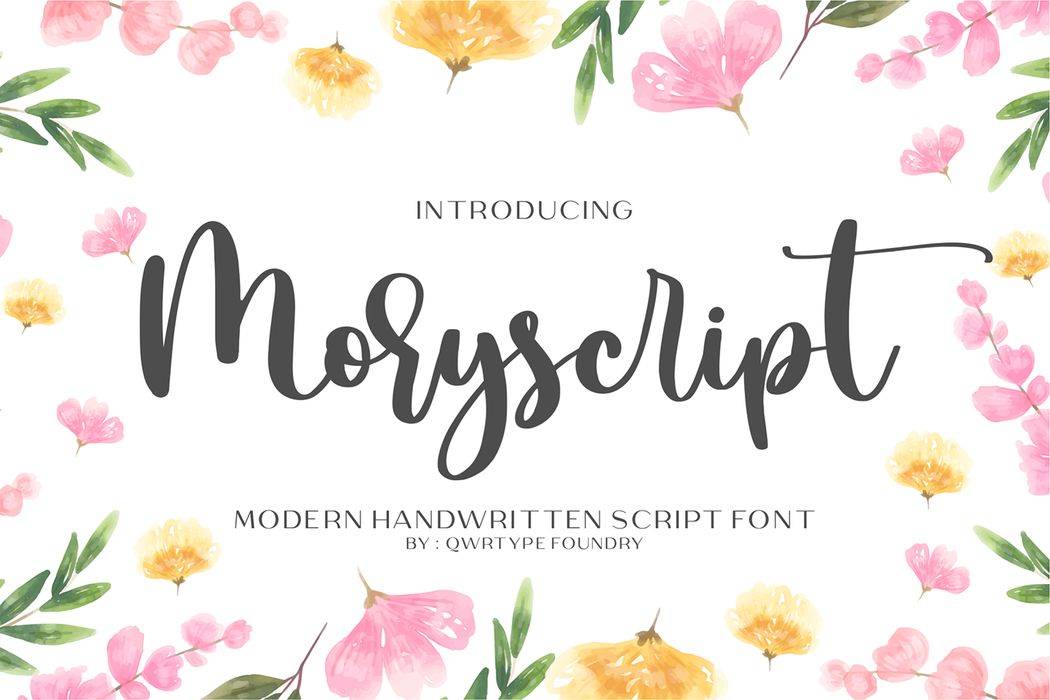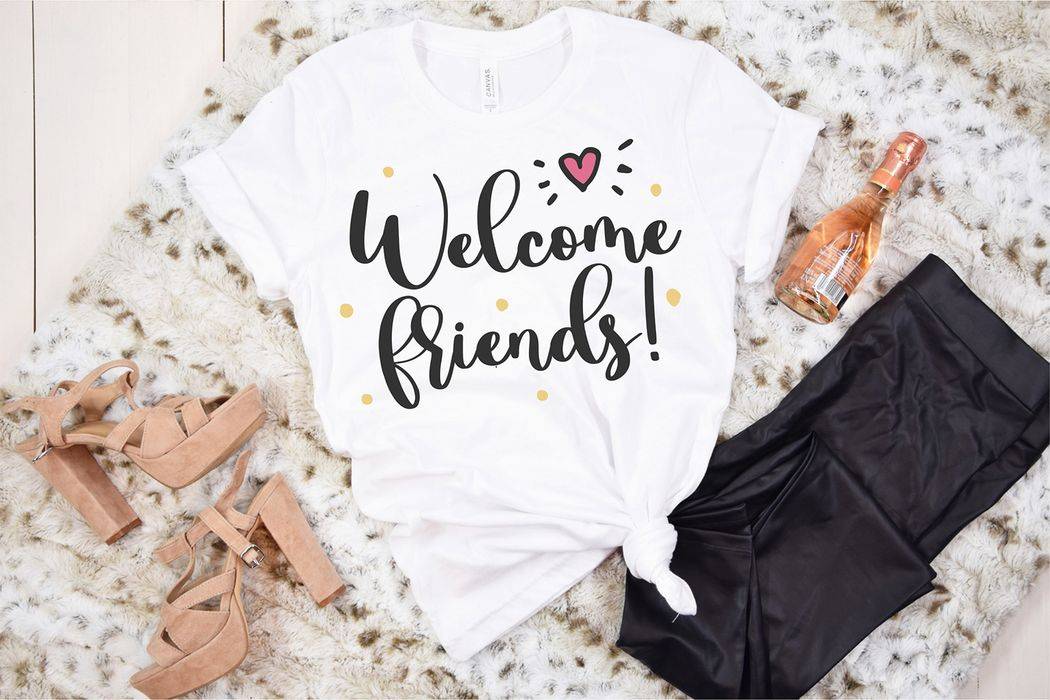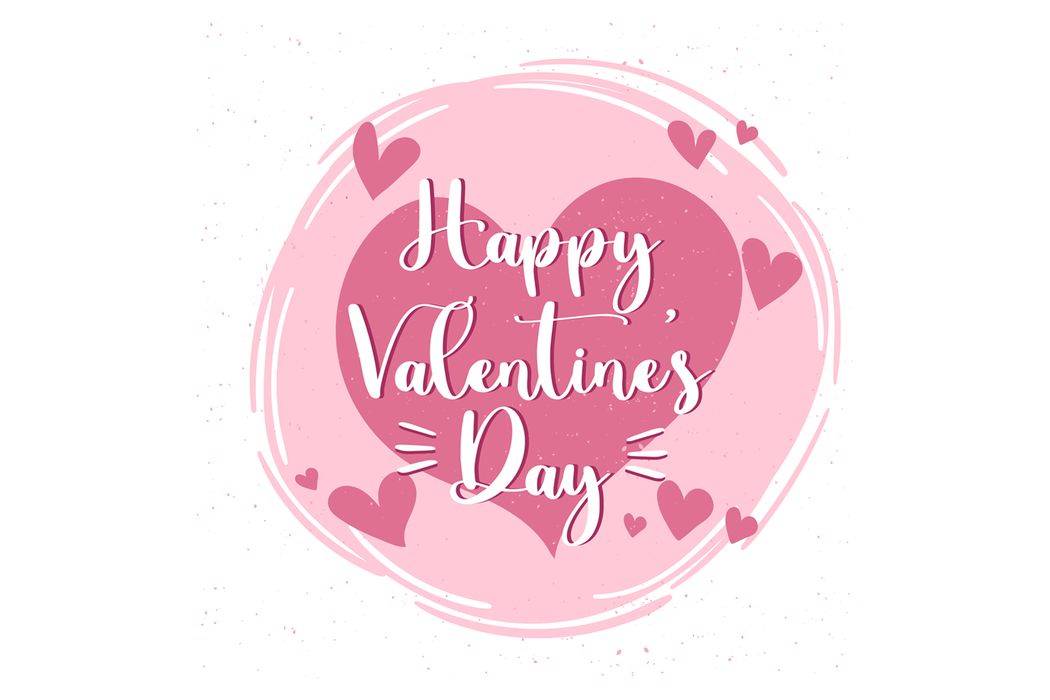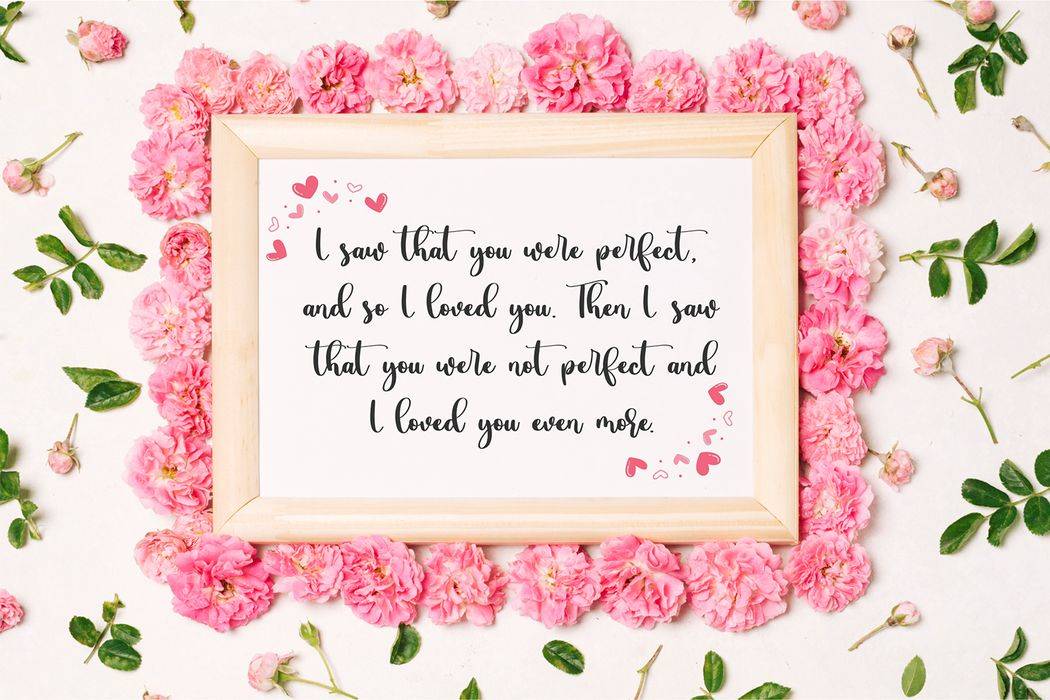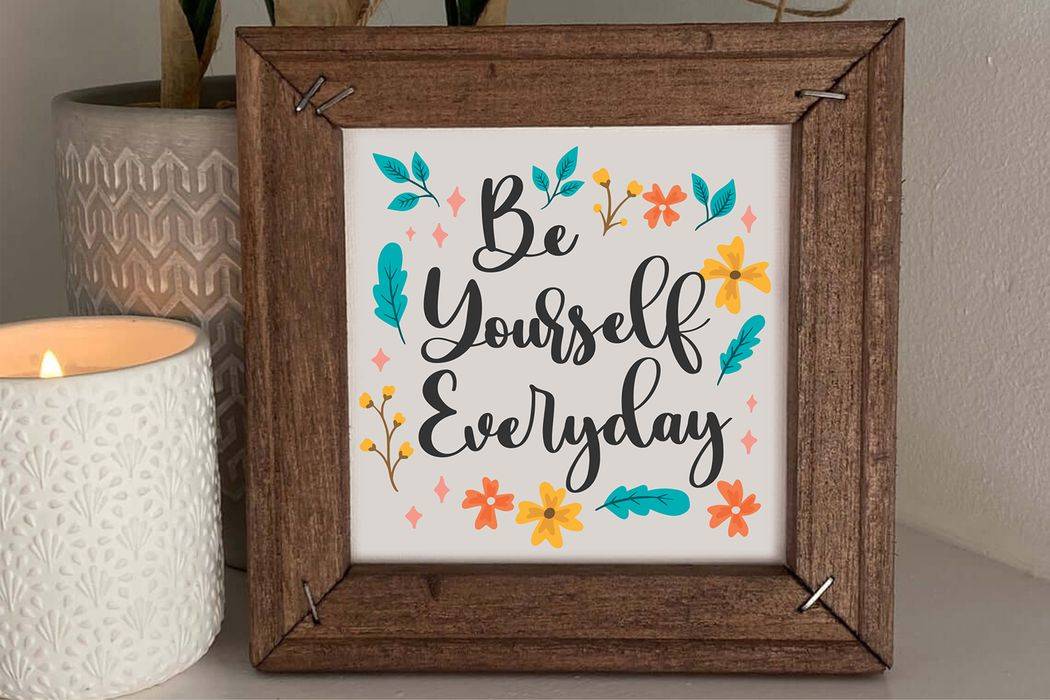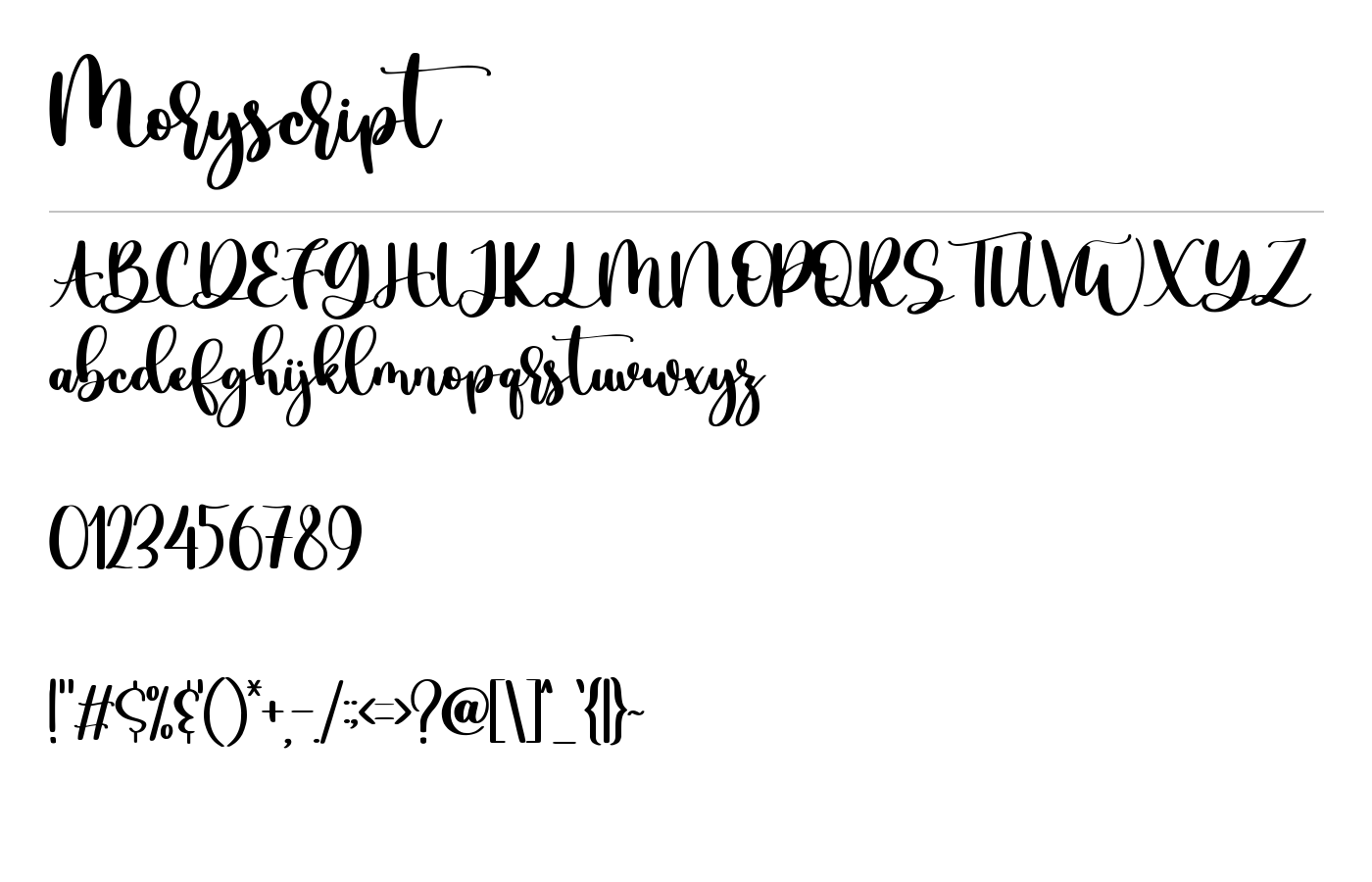
Moryscript is a stylish and elegant script font with a modern calligraphic flair, featuring smooth, connected letterforms and graceful flourishes. Its moderate contrast and flowing strokes make it perfect for creative branding, invitations, and packaging that seek a personal, sophisticated touch. This font works best for headlines and decorative text where a warm, hand-crafted feel is desired.
Moryscript Font
About Moryscript Font